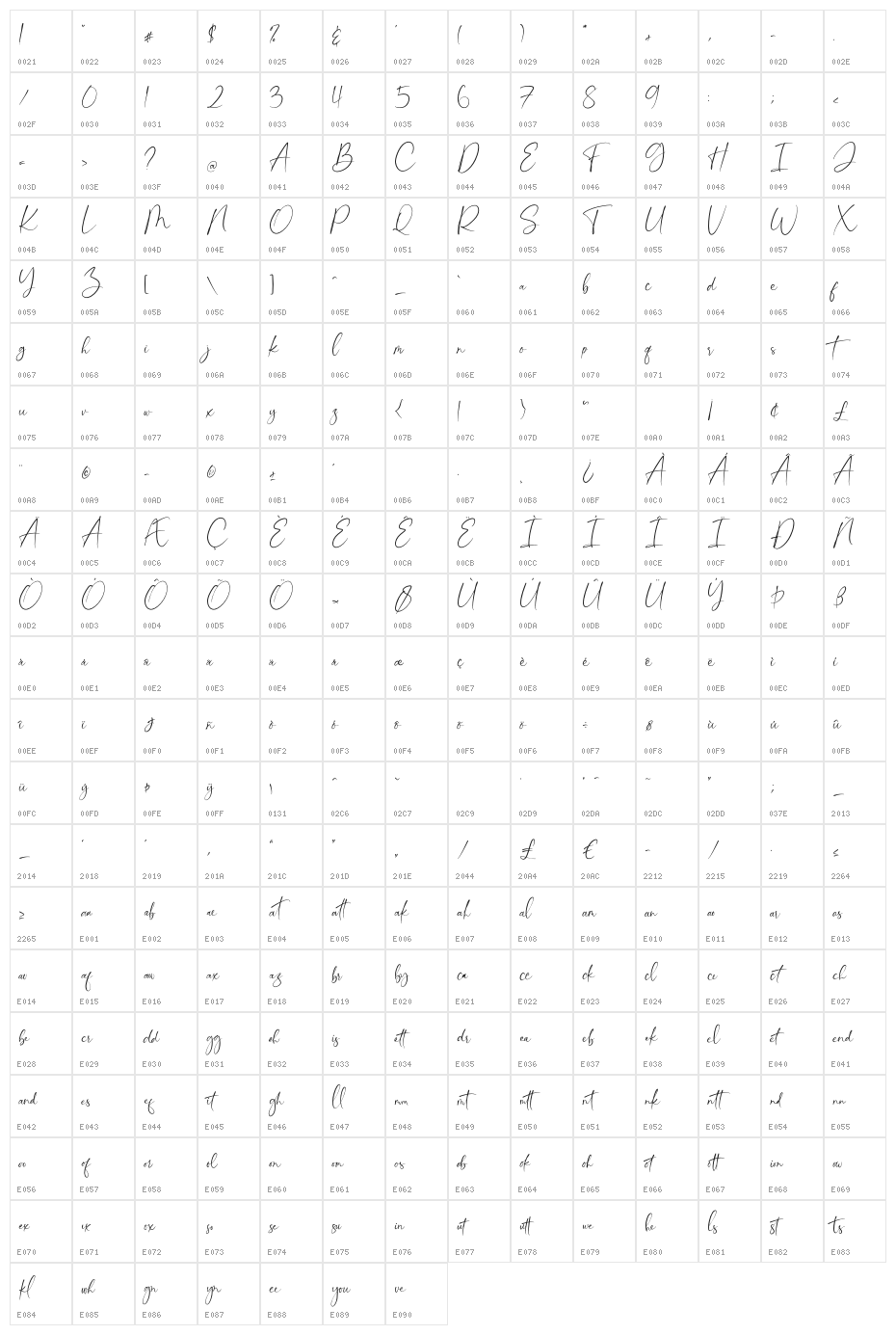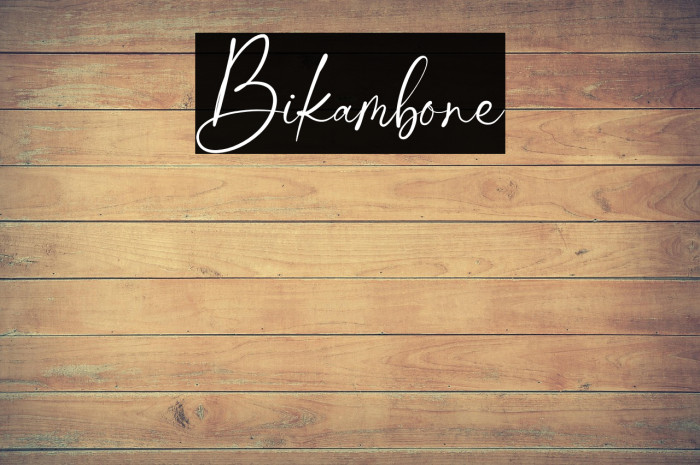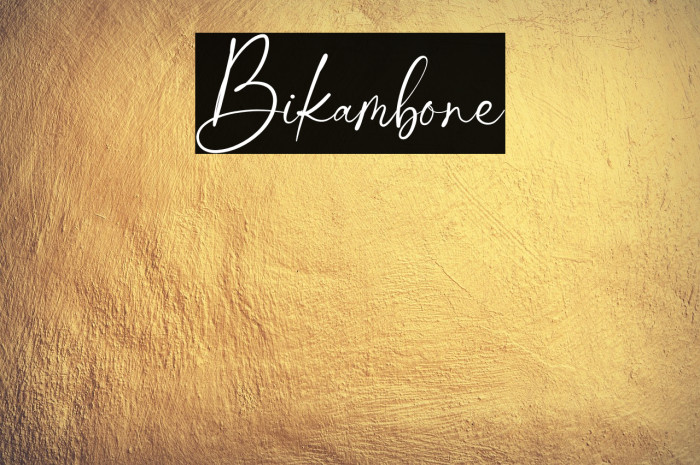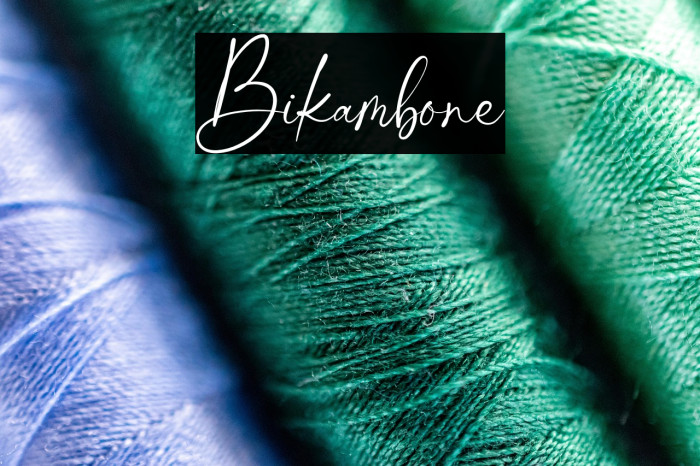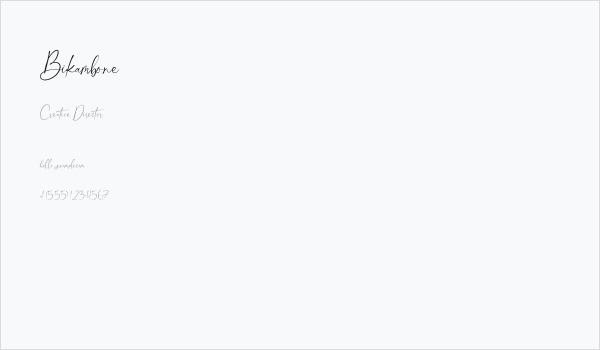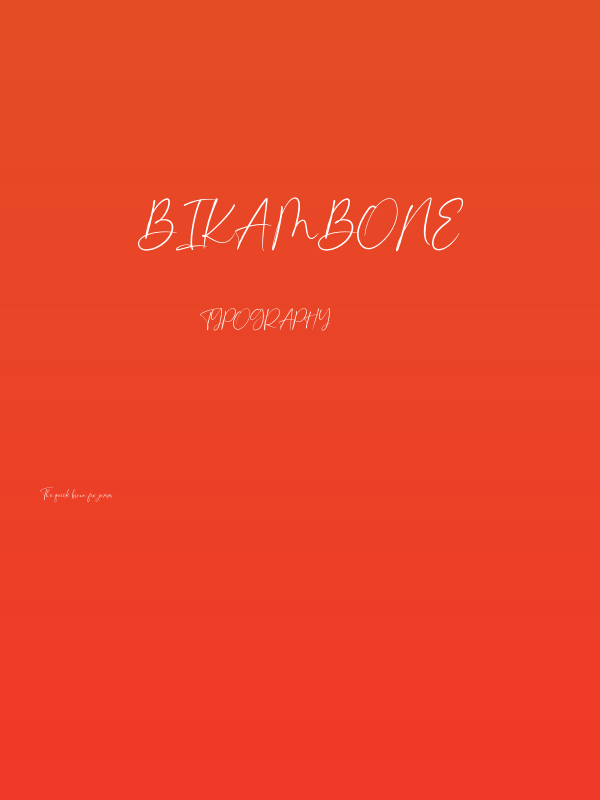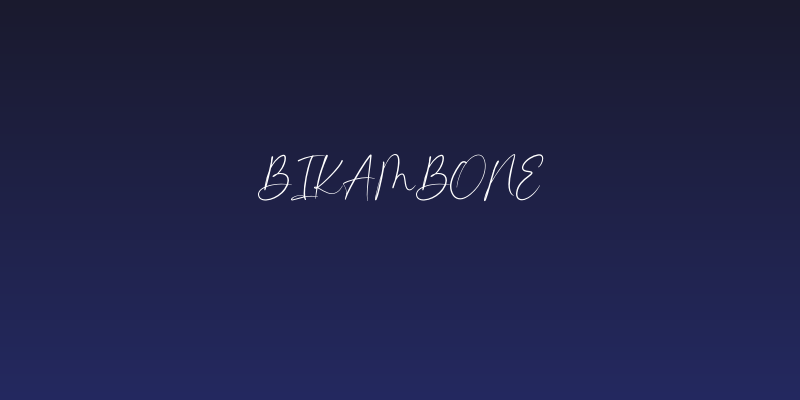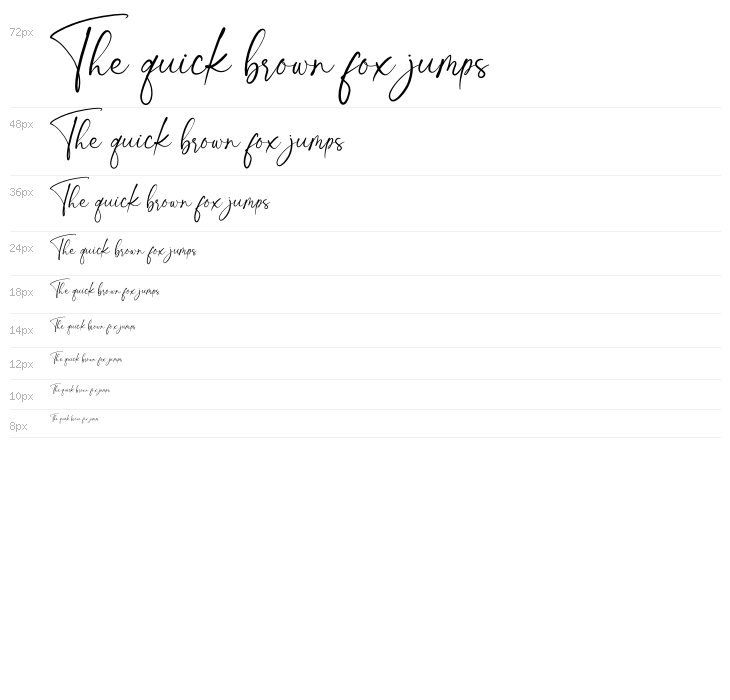
Bikambone Font
Bikambone Description
This font features an elegant and flowing script style, characterized by its smooth, cursive strokes and a handwritten appearance. The letters are connected with a fluid motion, giving it a natural and personal touch. It combines both uppercase and lowercase letters with a consistent slant, enhancing its graceful and sophisticated look. The numbers and special characters maintain the same flowing style, ensuring uniformity across all elements. The overall design is delicate yet legible, making it suitable for various creative applications.